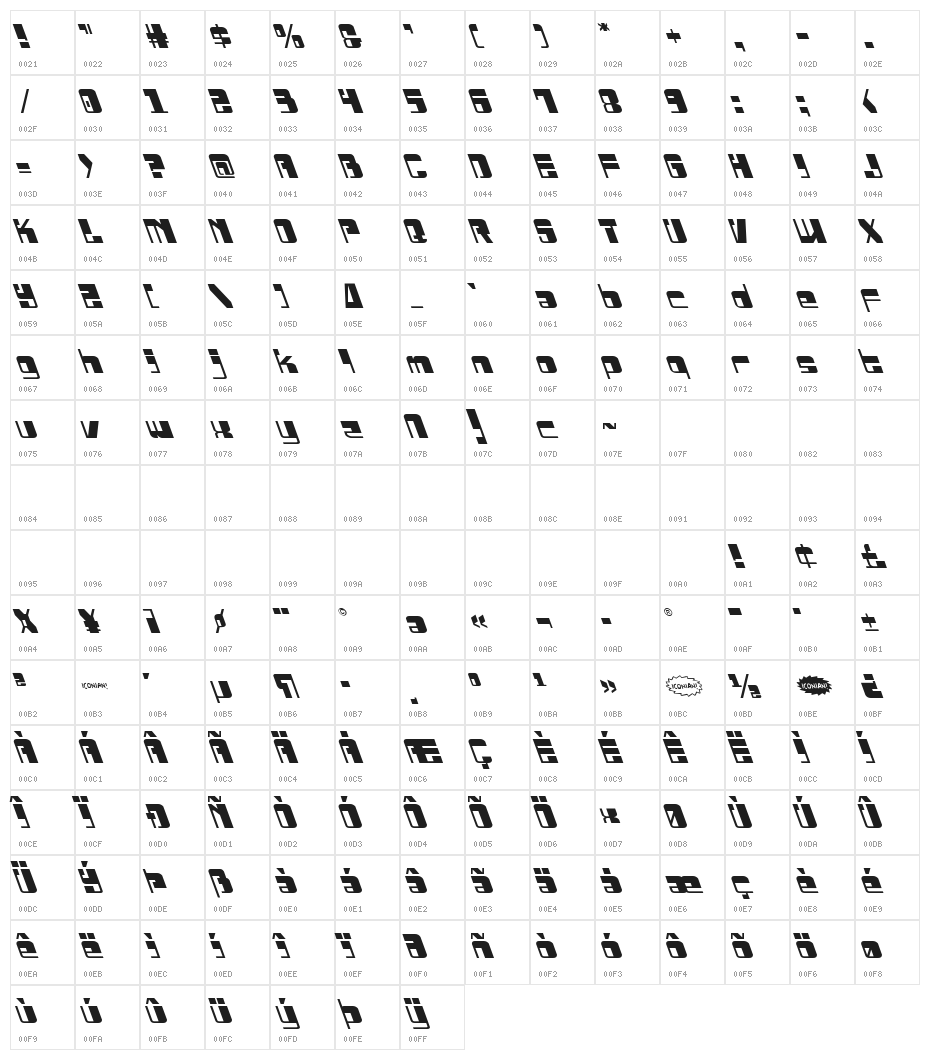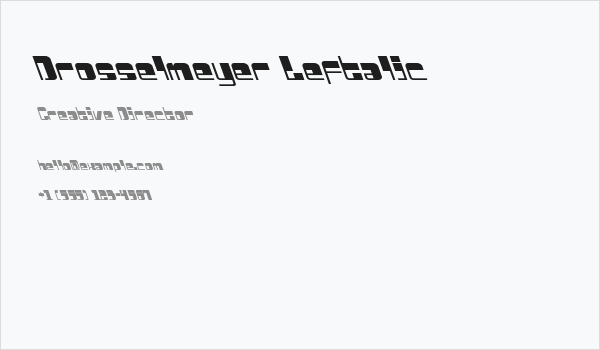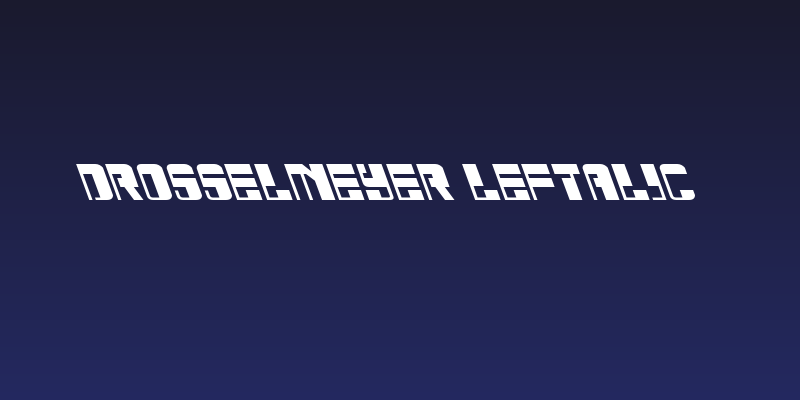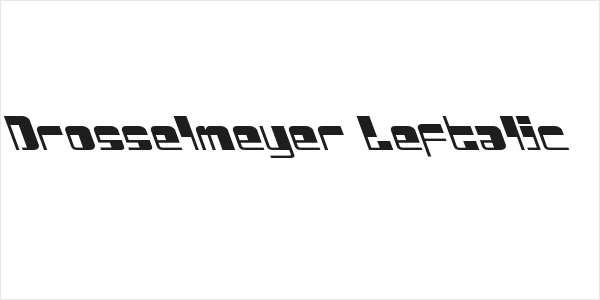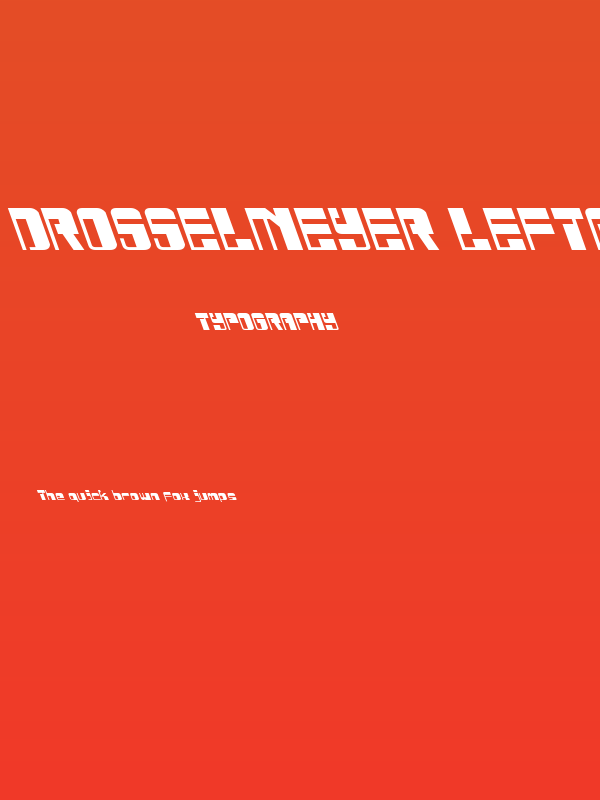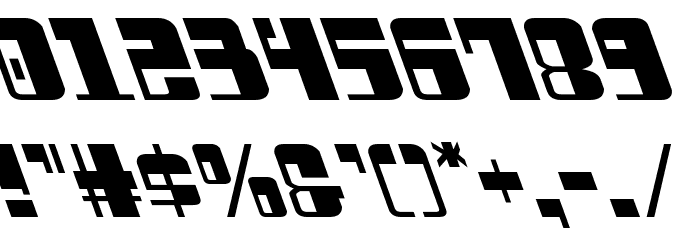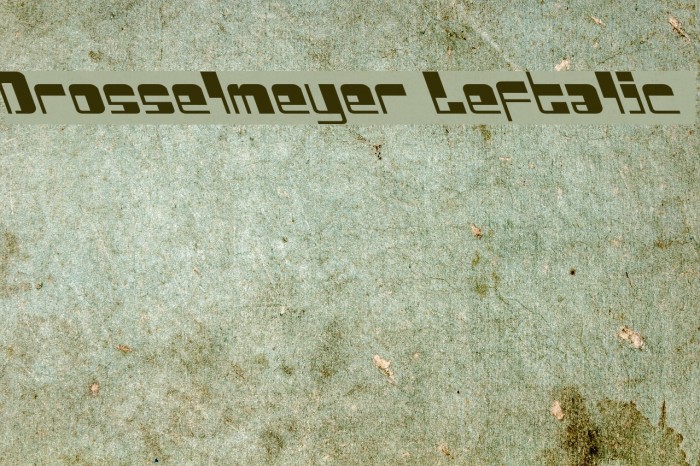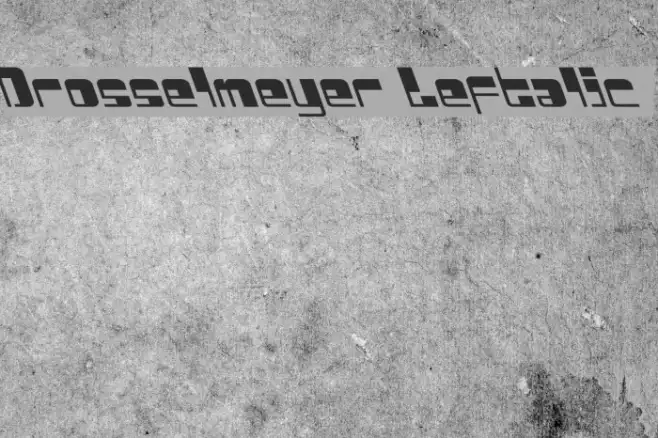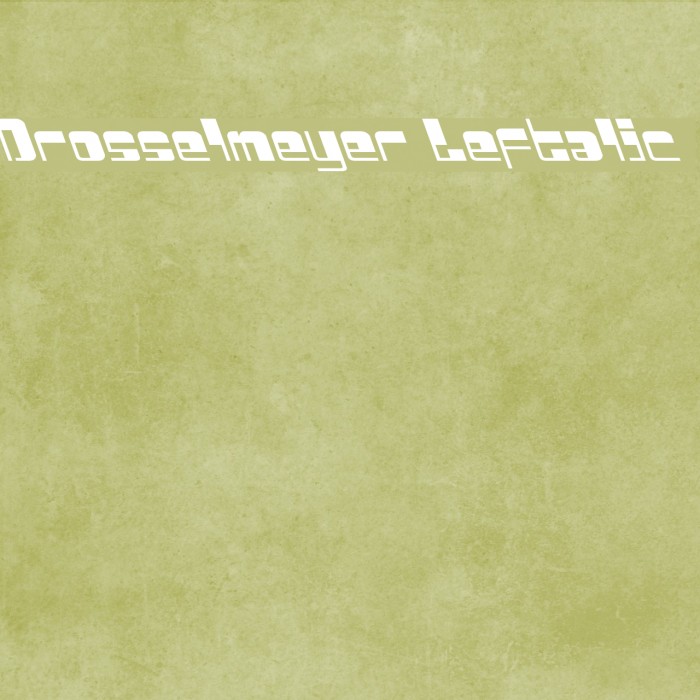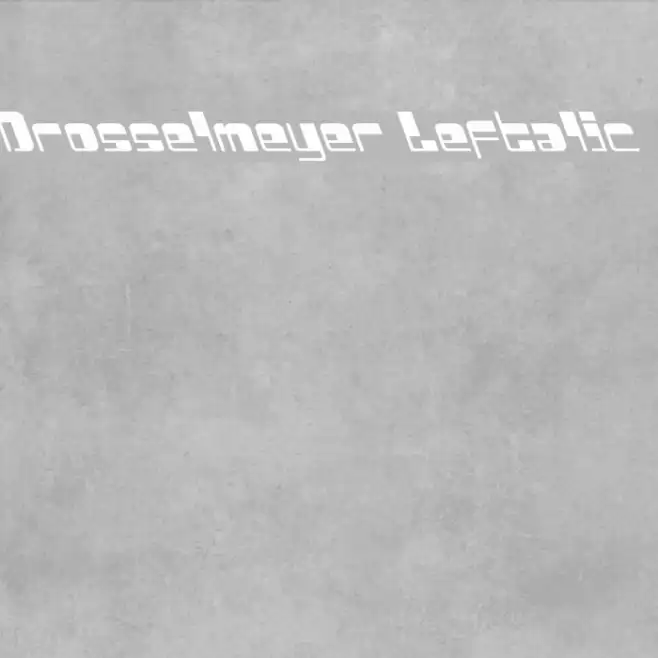
Drosselmeyer Leftalic Font
Drosselmeyer Leftalic Description
This font features a bold, angular design with a distinct leftward slant, giving it a dynamic and energetic appearance. The characters are wide and blocky, with sharp edges and a futuristic feel. The uppercase and lowercase letters maintain a consistent style, with the lowercase being slightly more compact. Numbers and special characters follow the same bold and angular design, ensuring uniformity across all glyphs. The font's unique style makes it stand out, suitable for projects that require a strong visual impact.
| Proposed Projects | Ideal for sci-fi themed designs, video game titles, posters, and branding that requires a bold statement. |